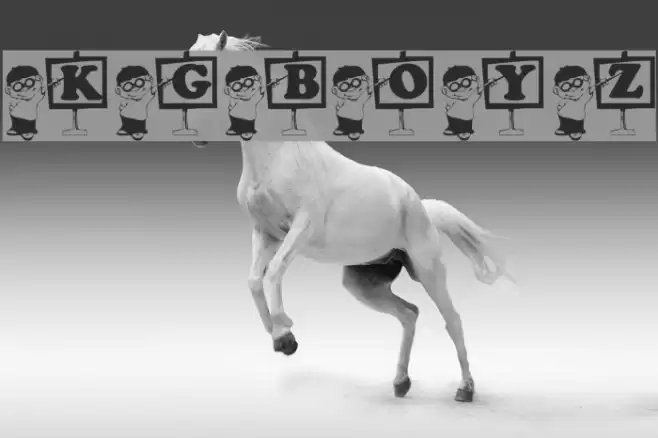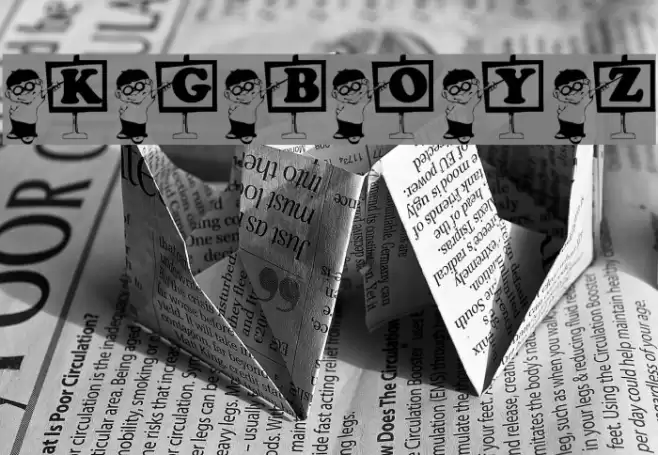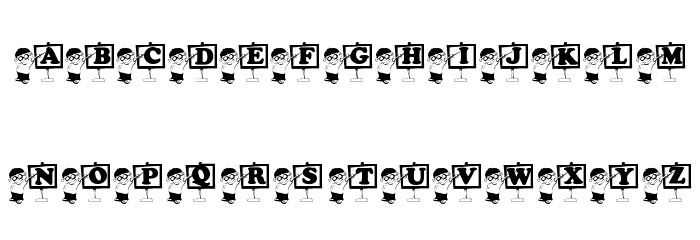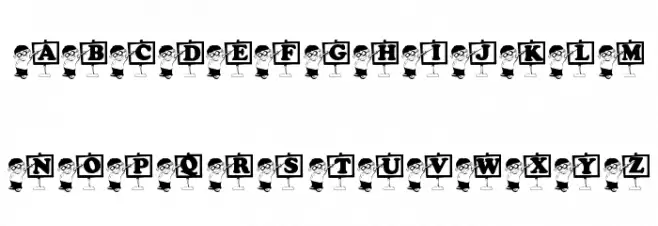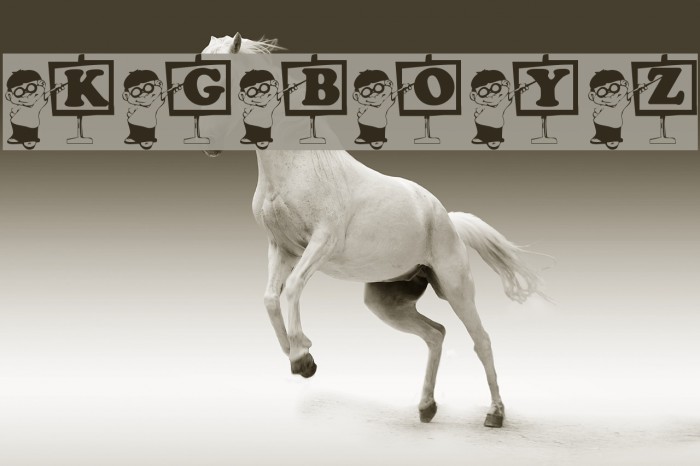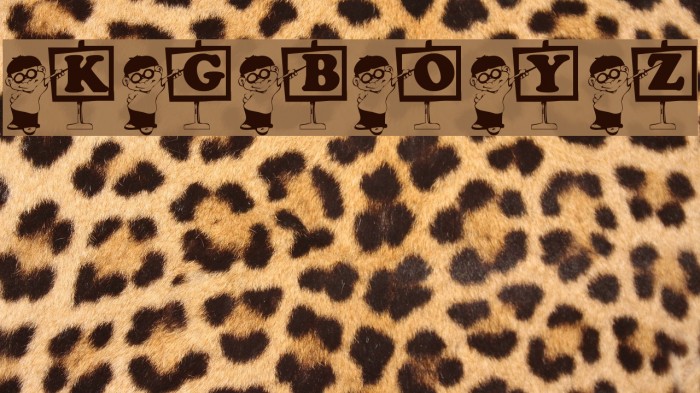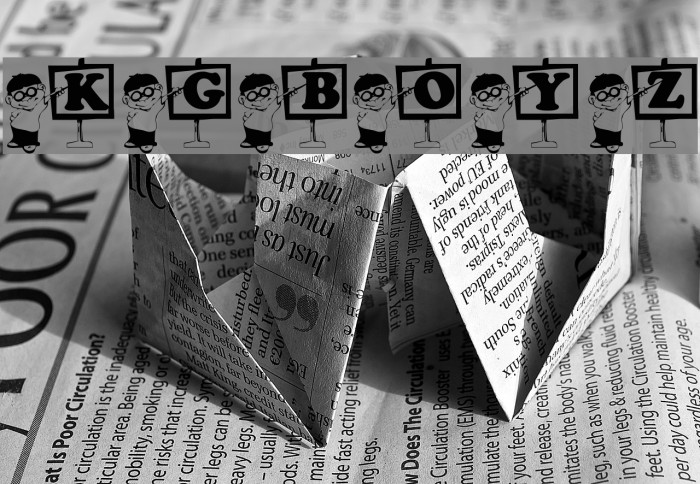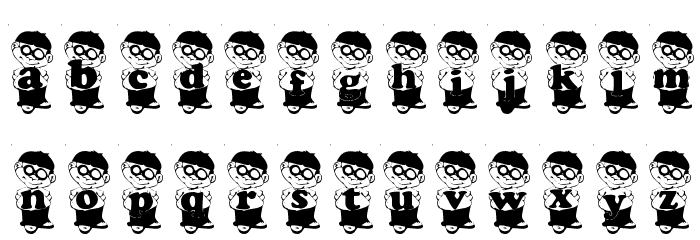
KG_BOYZ Font
KG_BOYZ Description
This playful and whimsical font features each letter encapsulated within a cartoon character, creating a unique and engaging visual style. The characters are depicted holding signs with bold, uppercase and lowercase letters, adding a sense of fun and creativity. The font is highly decorative, making it ideal for projects that require a lighthearted and youthful touch. The characters are consistent in design, with a focus on bold outlines and clear letterforms, ensuring readability despite the decorative elements.
A playful, cartoon-style font with letters held by whimsical characters from Uncategorized fonts.
- Proposed Projects: Ideal for children's books, educational materials, playful branding, and party invitations.
- Overall Style: Whimsical, Playful
- Use Case: Headlines, Logos, Decorative text